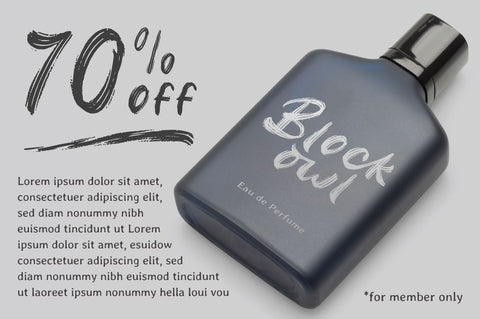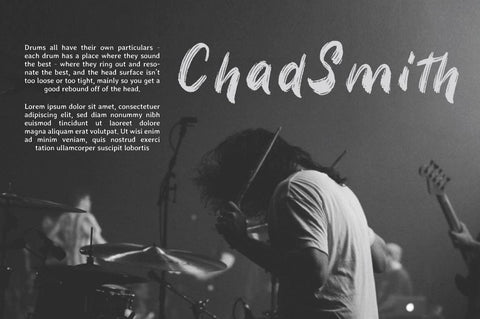
Balsoon - Brush Font
Introducing Balsoon - Inspired by urban typeface with texture style,
Balsoon has strong character perfect for urban street design.
Balsoon is perfect for branding, logo, invitation, stationery, product packaging, merchandise, monogram, blog design, game titles, cute style design, Book/Cover Title and more.
- Ending swash